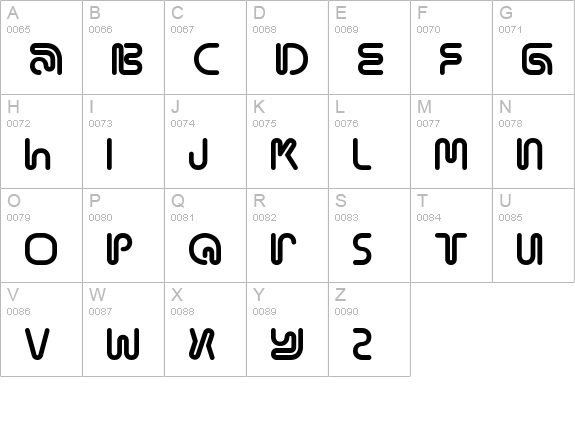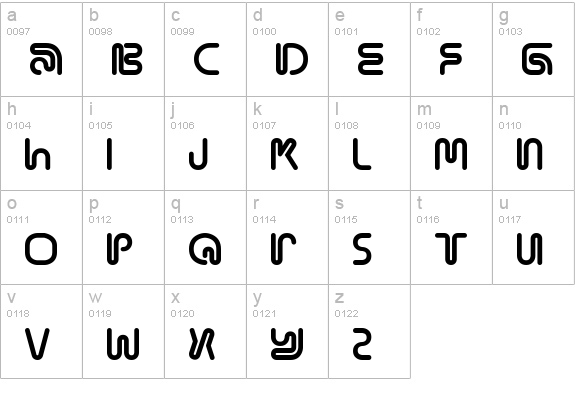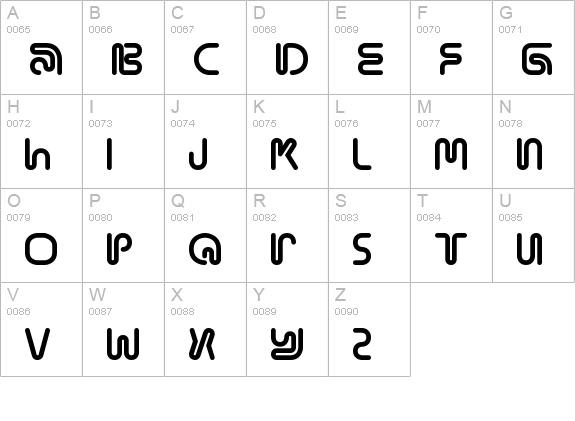
MamaRound Font Details
MamaRound font is a captivating and charming typeface that will bring a touch of warmth and playfulness to any design project. With its rounded edges and soft curves, this font exudes a sense of friendliness and approachability. It is designed to evoke feelings of comfort and nostalgia, making it perfect for a wide range of applications, from invitations and greeting cards to branding and packaging. One of the best things about MamaRound font is that it is completely free. Yes, you read that right - this delightful font can be downloaded and used without any cost. It is freely available to download at FontsMarket.com, a reputable website that offers a vast collection of high-quality fonts for designers and creatives. Whether you're a professional graphic designer or a hobbyist looking to add a special touch to your personal projects, MamaRound font is a fantastic choice. Its versatility and unique charm make it suitable for various design styles and purposes. So go ahead and explore the endless possibilities that MamaRound font offers, and bring your ideas to life with this beautiful typeface.